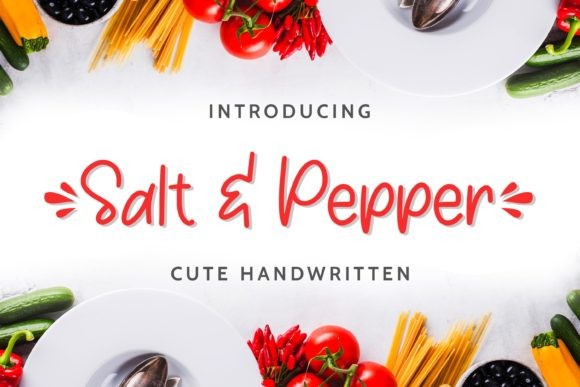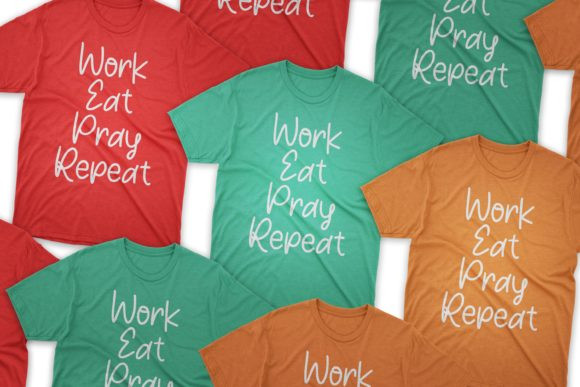
Salt & Pepper Font
Salt & Pepper is a sweet and cute handwritten font. It features an incredibly classic style, while still keeping a friendly feel. Salt & Pepper is the perfect font for making original and outstanding designs.